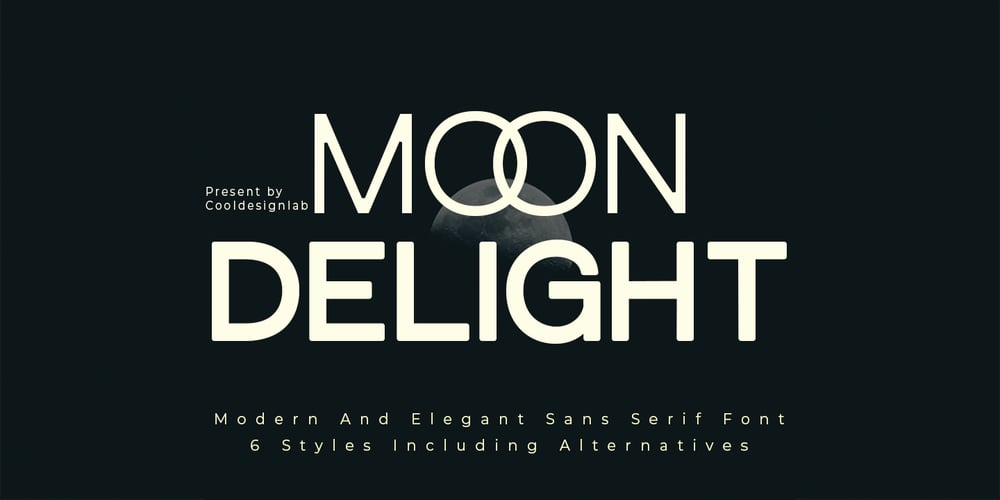
Moon Delight Font Family was designed by Kurniadi Saputra and published by Cooldesignlab. Moon Delight contains 6 styles and family package options. Moon Delight is a Sans Serif font inspired by several past and present fonts packaged in a modern and classy style, complete with access to the OpenType feature to access a large selection of alternative fonts and ligatures, choose the letters you like from a variety of uppercase letters to achieve a luxurious and luxurious impression. elegant.The unique, fun, and versatile Sans Serif family enhances any design you love. This font is perfect for branding projects, Logo designs, Apparel Branding, packaging, magazine titles, advertising, T-shirts, postcards and more.Feature : All Uppercase and Lowercase Numbers & Symbols Supported Languages Alternatives and Ligatures PUA code